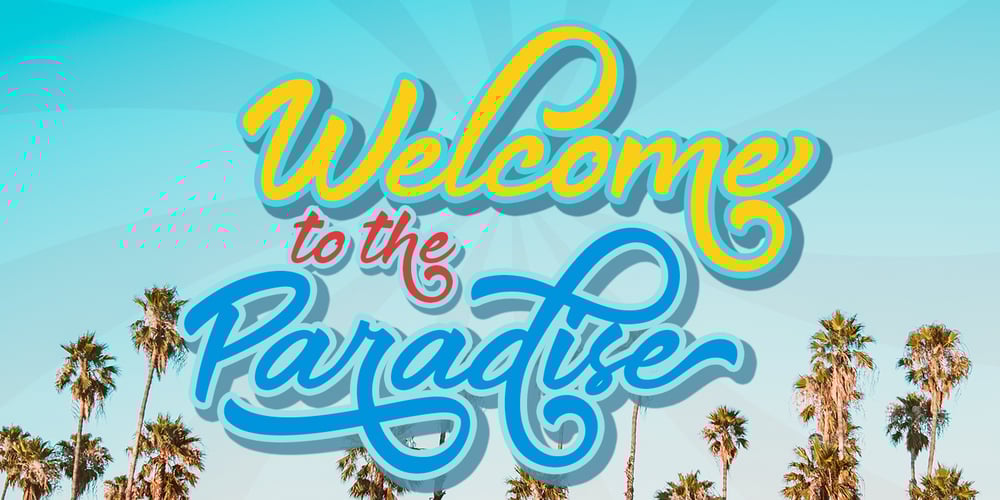
The Delicate
The Delicate font
The Delicate Font Family was designed by Suandana ipandemade and published by madeDeduk. The Delicate contains 1 styles and family package options. The Delicate is a classic bold script and this perfect for all your designs project, events, and more. It features: – UPPERCASE – lowercase – Number & Symbol – International Glyphs – Alternative Uppercase – Alternative lowercase If you need anything else please contact dedukvic@gmail.com Find more previews on my Instagram here : https://www.instagram.com/acekelgondolayu/?hl=en